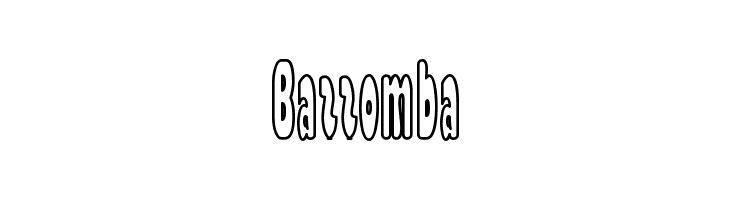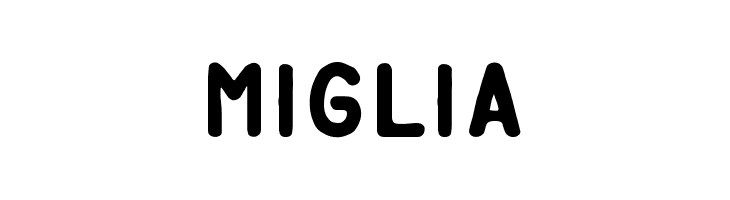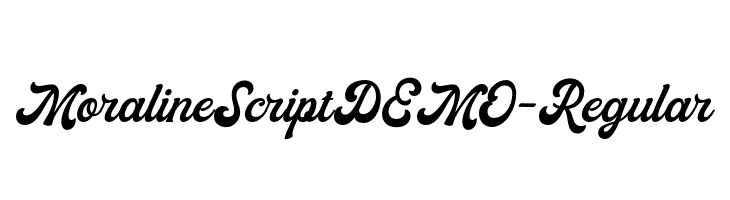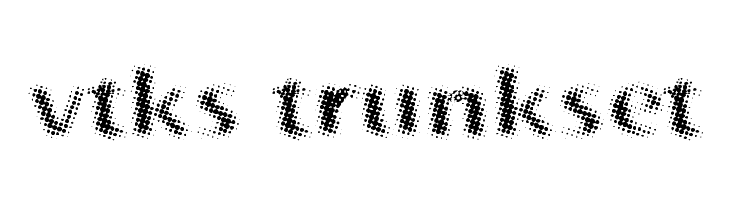
A sophisticated script font with flowing, cursive lines.
A bold, textured font with a playful, cloud-like appearance.
A bold, jagged, and dynamic font with a chaotic, artistic style.
A bold, geometric font with strong, uniform letterforms.
A playful, handwritten-style font with rounded edges and a casual feel.
A bold, graffiti-inspired font with sharp, jagged edges and dynamic strokes.
An elegant, flowing script font with a modern touch.
A bold, distressed font with a grunge aesthetic.